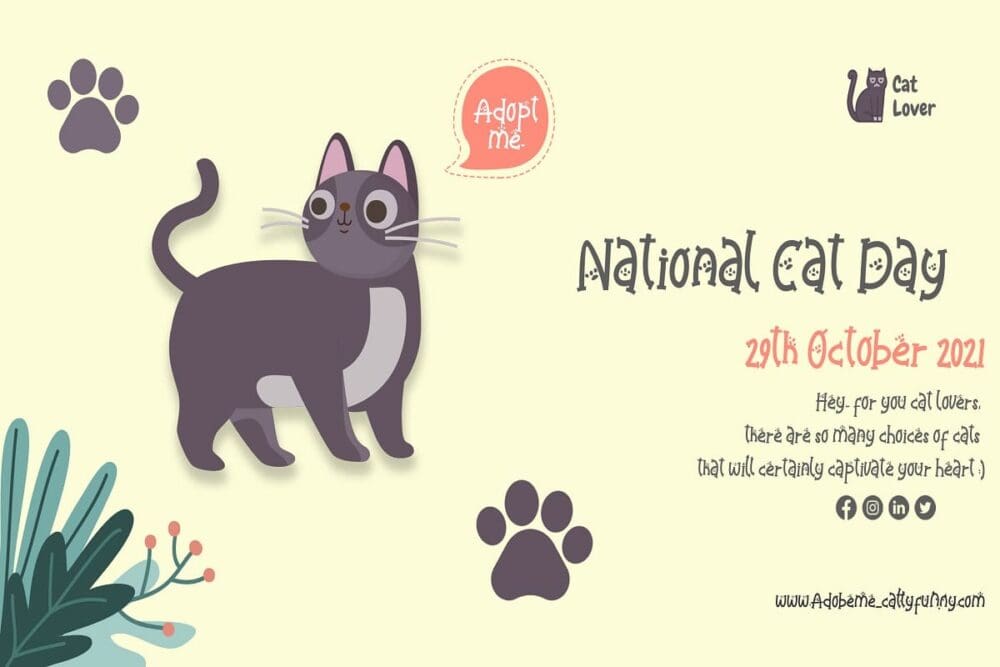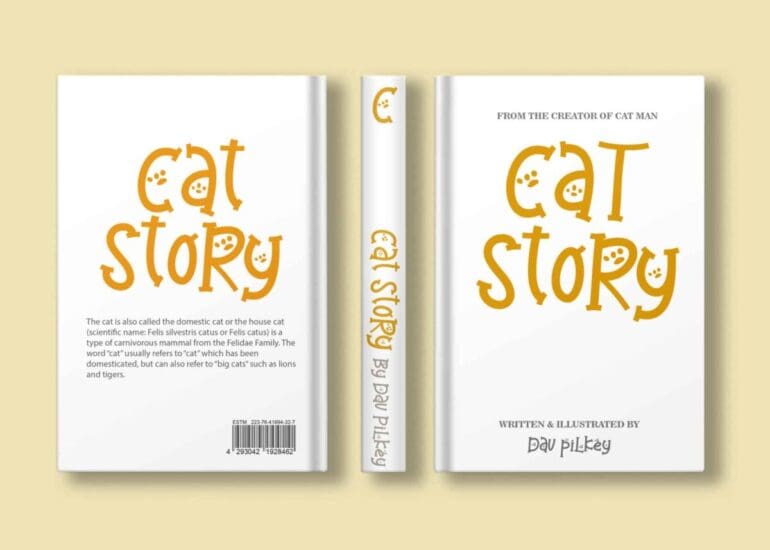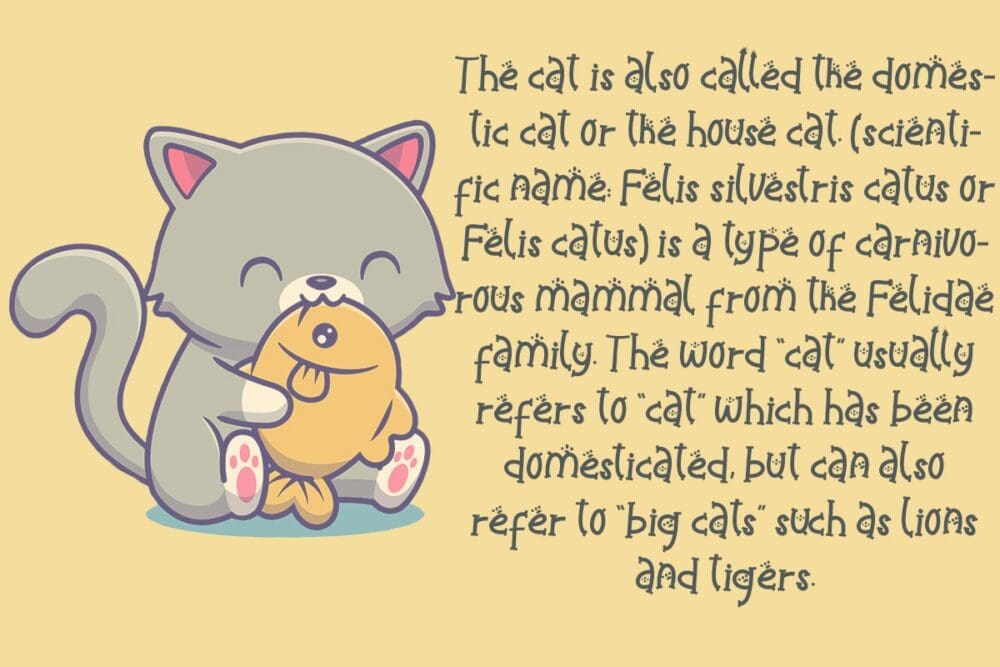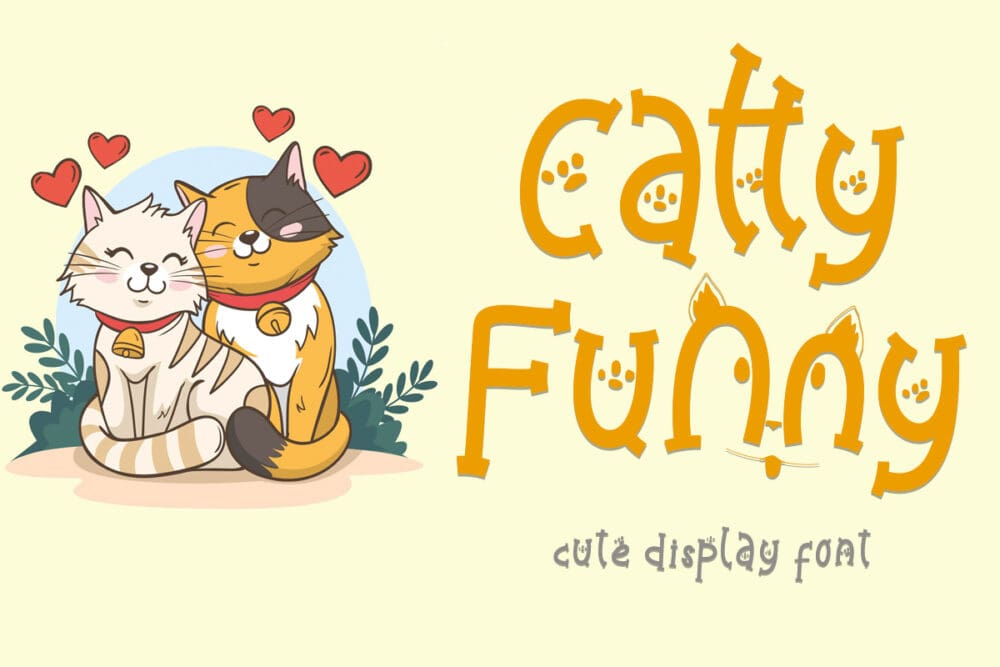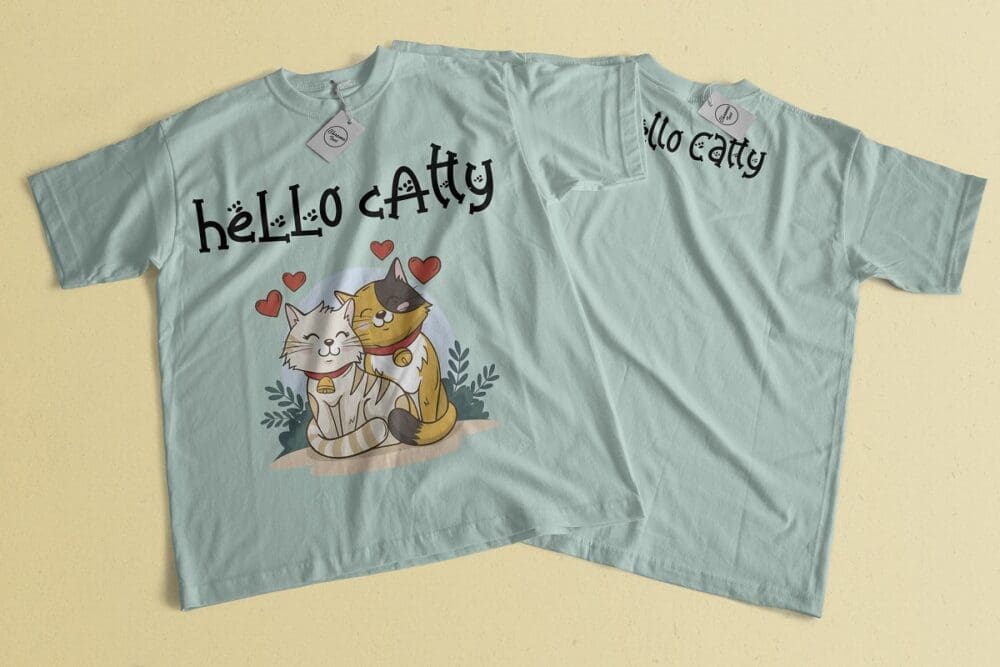
Catty Funny Font
Catty Funny is a cute and unique type of display font. The decoration in this font has been specially designed so that it is easy to use. This font is perfect for promoting pet food, for writing posters, mugs, t-shirt designs, comic covers, book covers, logos, branding, banners, and more.